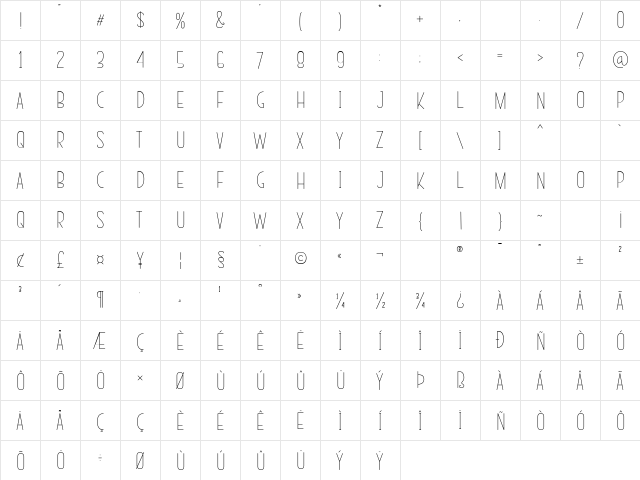
Today Easter Regular
| Foundry | Lettersiro |
| Designer | Muhammad Sirojuddin |
Design Context for Today Easter Typeface
Today Easter takes a measured approach to typography — its balanced proportions and neutral character make it a reliable workhorse for both digital and print work.